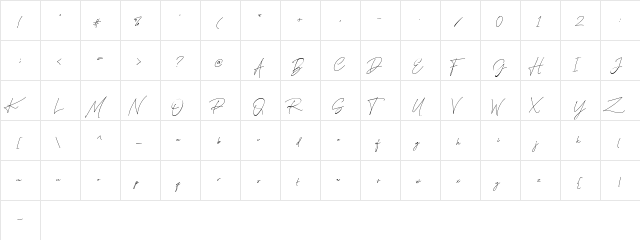
Fadeline Signature Regular
Design Context for Fadeline Signature Typeface
Fadeline Signature is a composed and adaptable typeface that performs quietly and consistently across a wide range of design contexts.